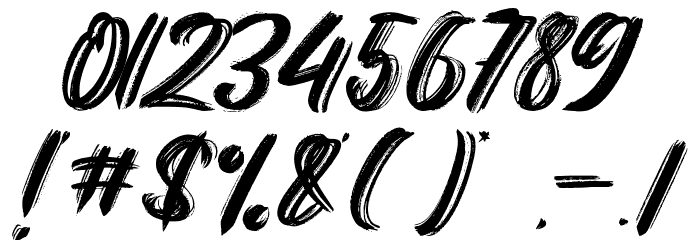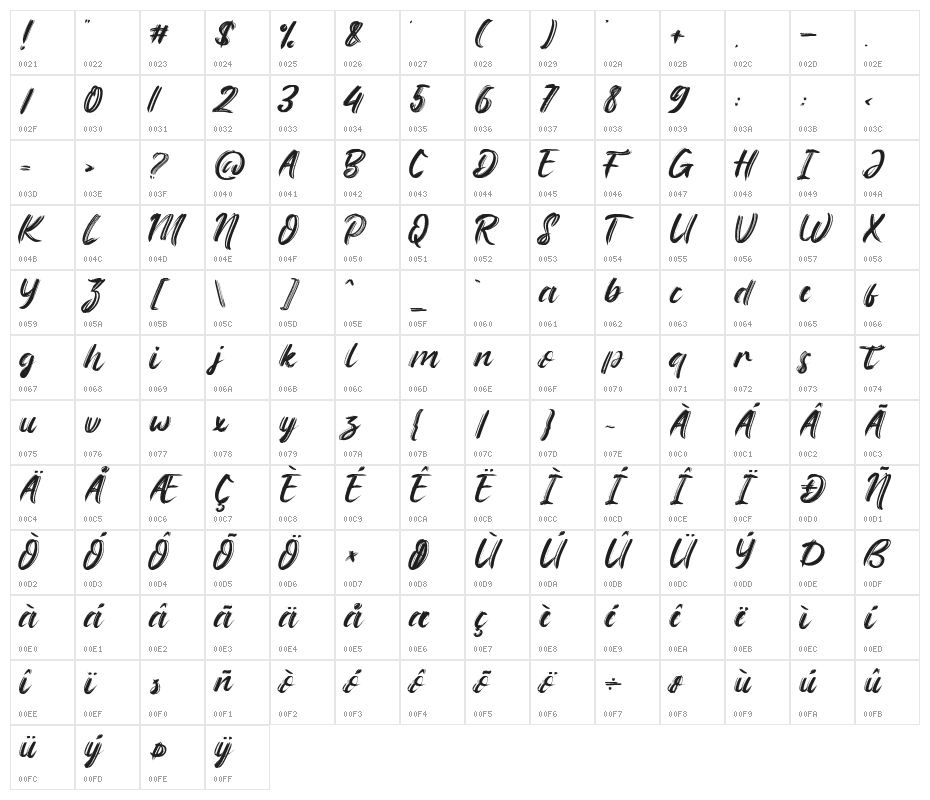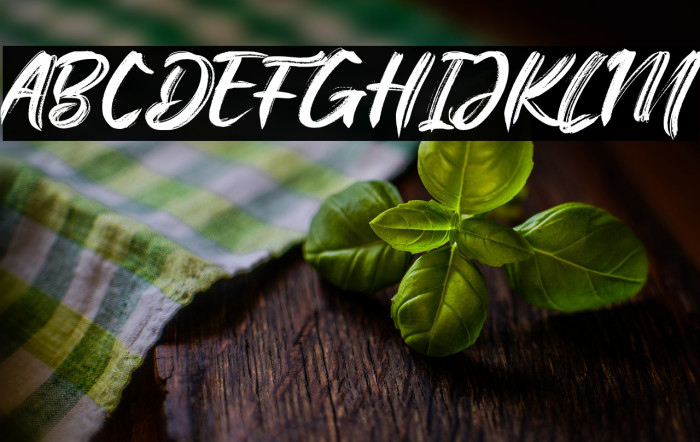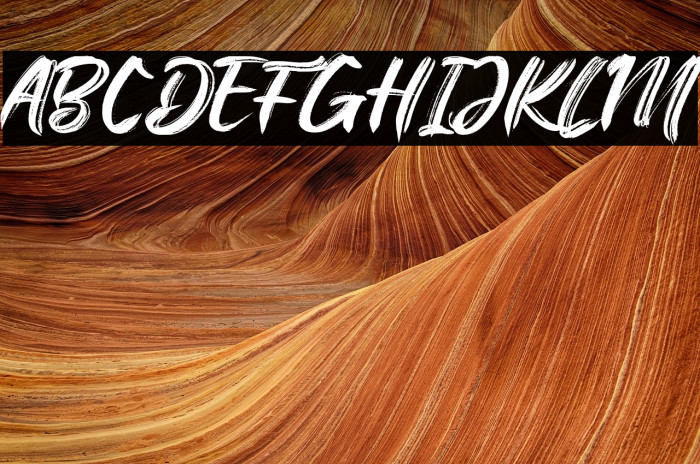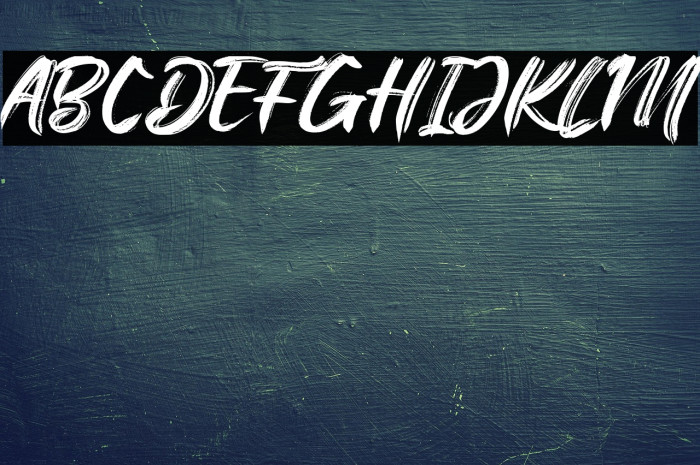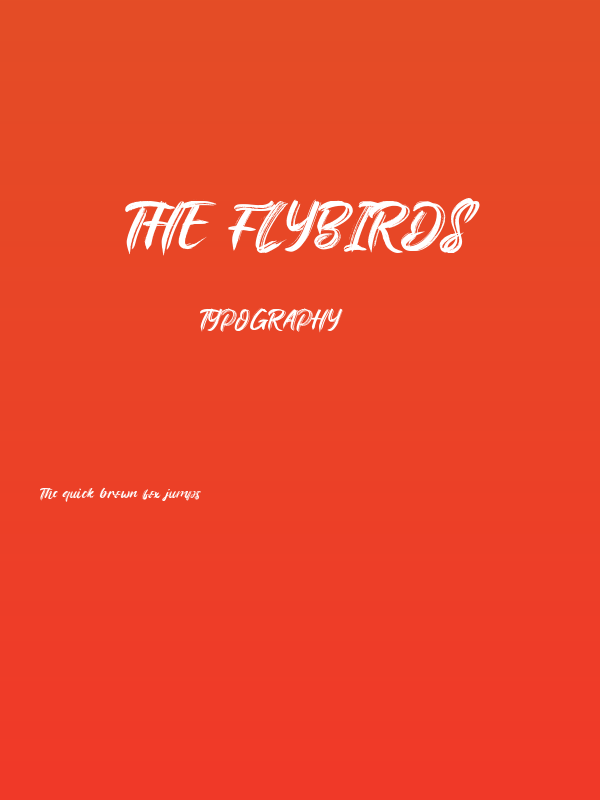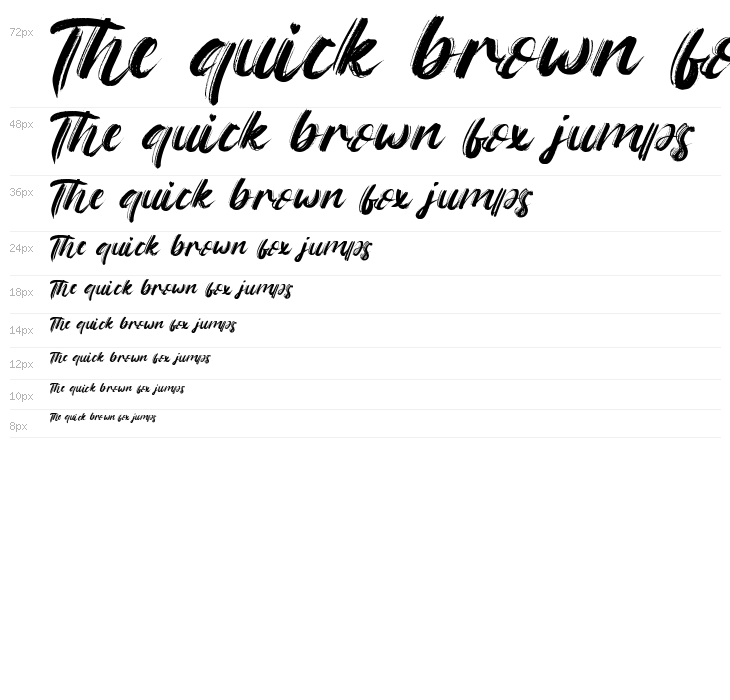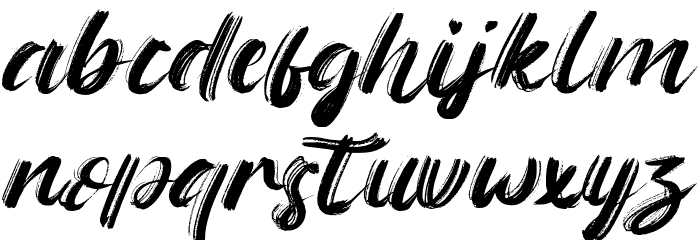
The Flybirds Font
The Flybirds Description
This font exudes a dynamic and expressive style, characterized by its bold, brush-like strokes that convey a sense of movement and energy. The letters are crafted with a natural, hand-drawn appearance, featuring varying stroke widths that add depth and texture. The uppercase and lowercase letters maintain a cohesive flow, while the numerals and special characters complement the overall aesthetic. This font's artistic flair makes it ideal for projects that require a personal touch or a creative edge.